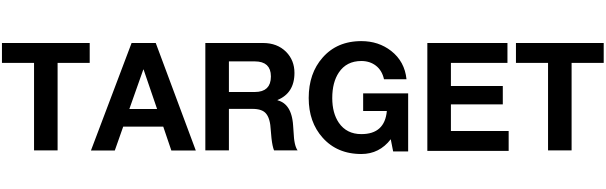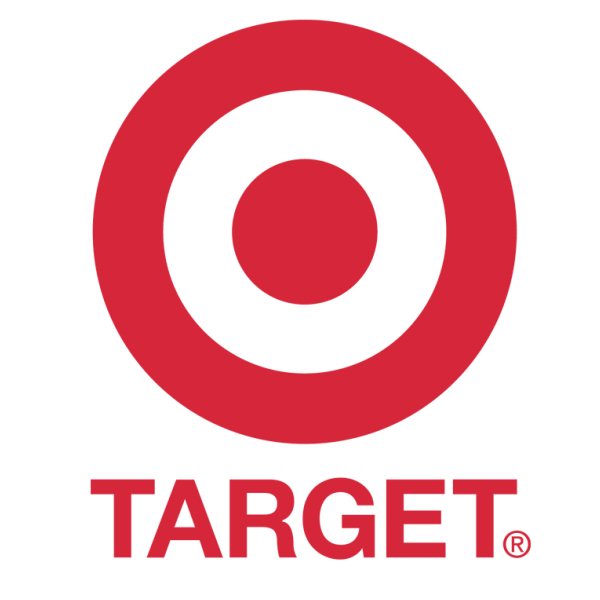
Target Font
ElectronicsTarget is a large retail chain in the United States, owned by Target Corporation. It sells a wide range of products including clothing, electronics, groceries, and household items.
Target's original logo featured a bullseye with the company name in the center, but in 1968, a modernized version was introduced, featuring a red ring with a dot inside and a wordmark underneath. The font used for the wordmark closely resembles the commercial font Helvetica Neue Bold, which is available for purchase here.